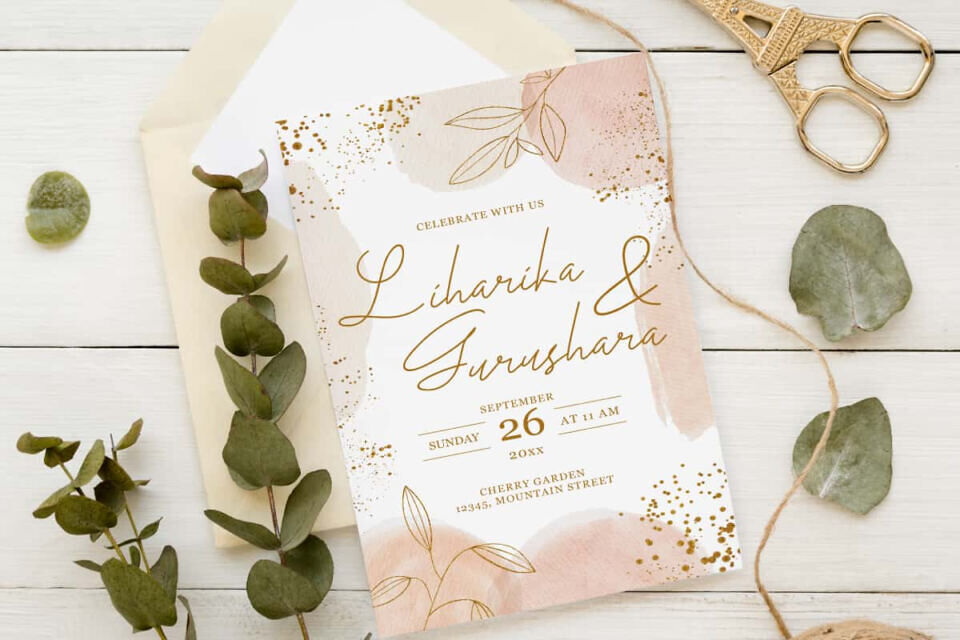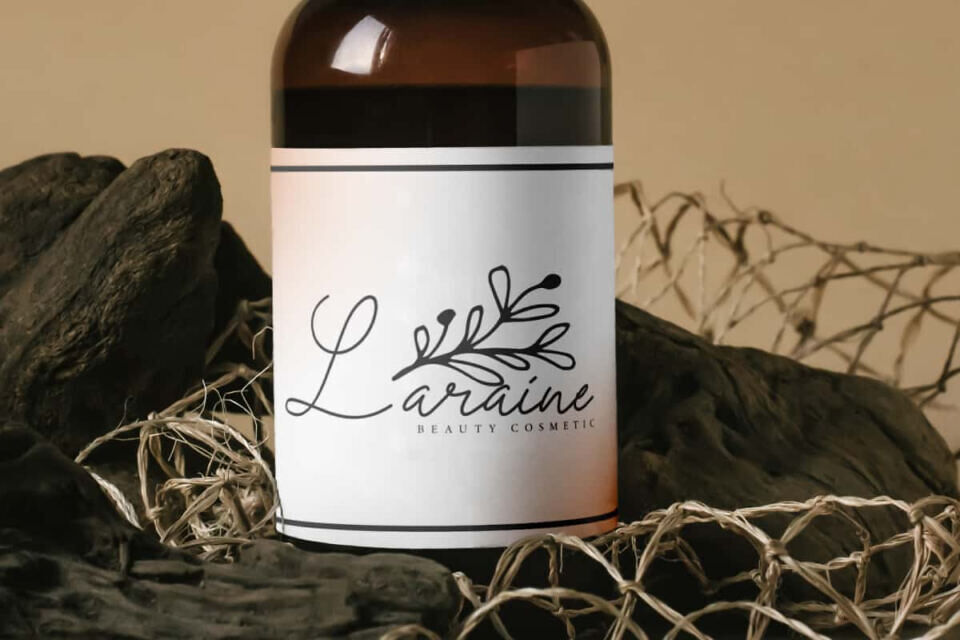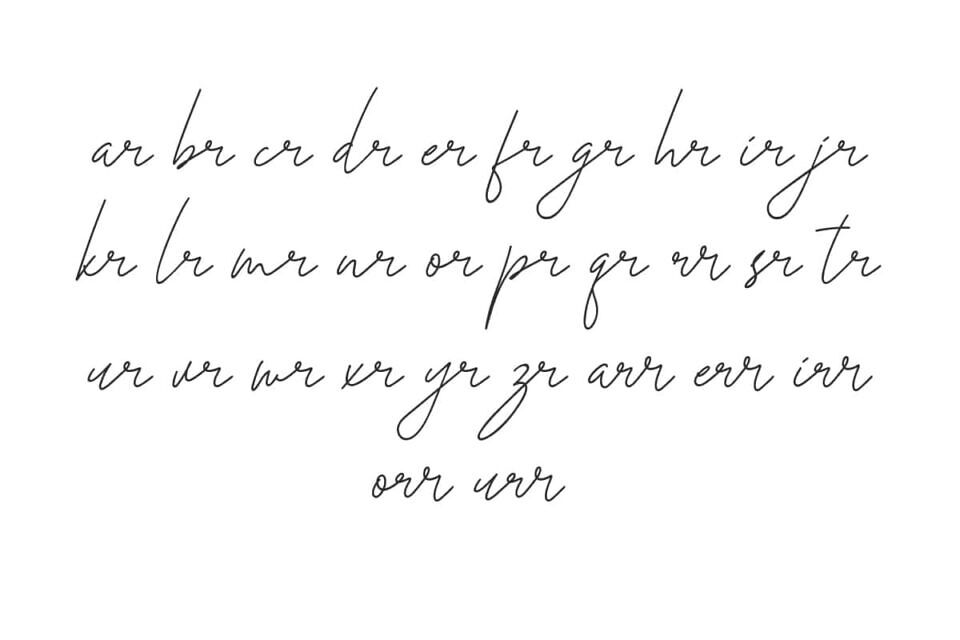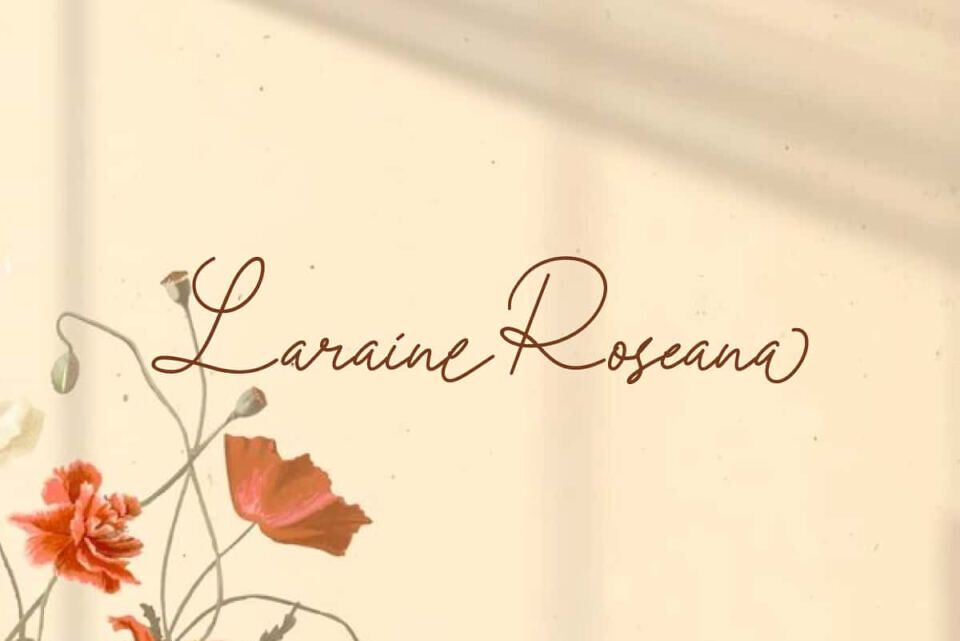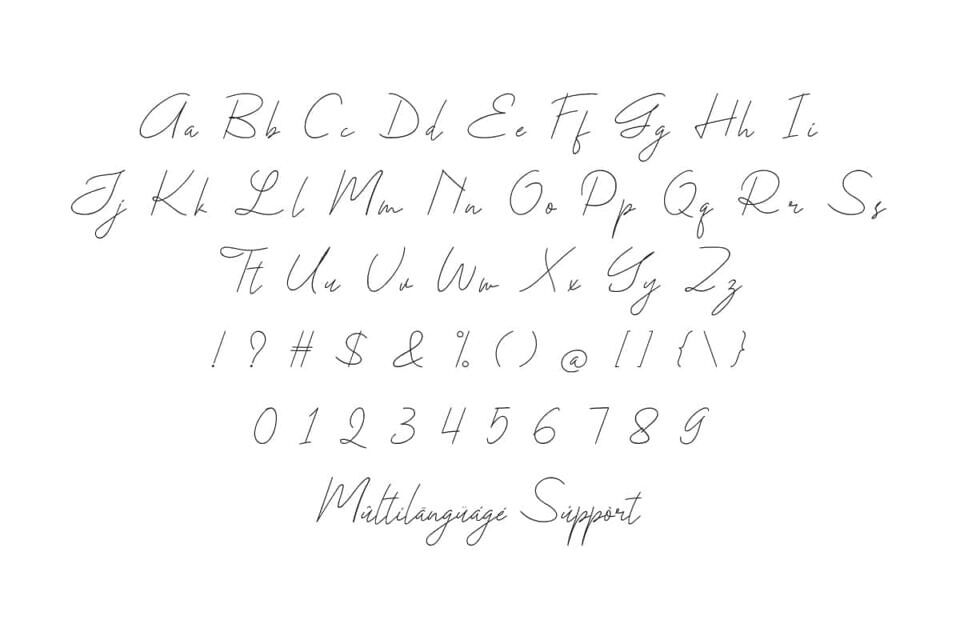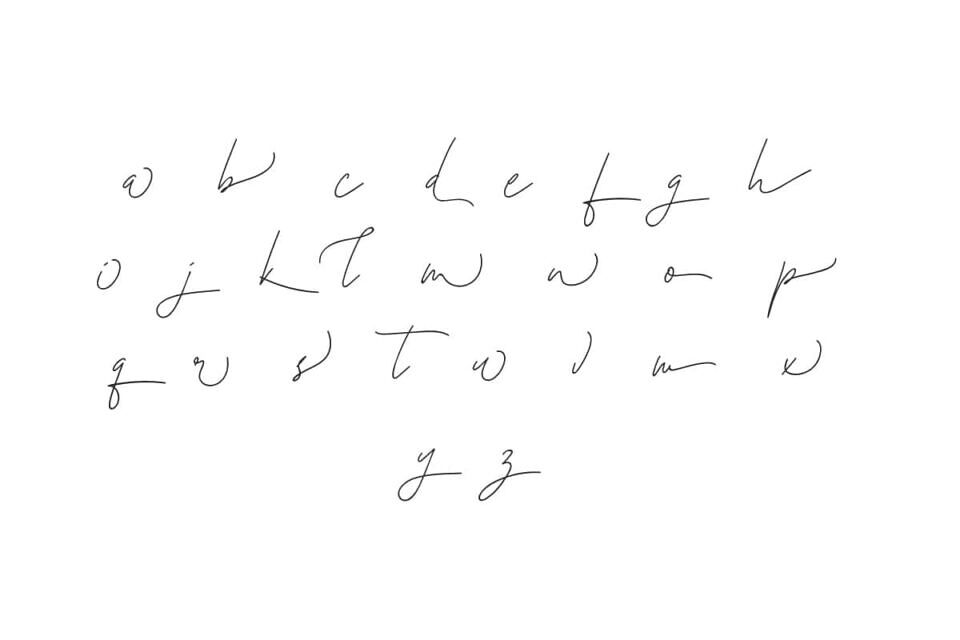
Laraine Roseana Font
Laraine Roseana Font is a handwriting font with a soft, clean and a classic signature style. This font will be suitable for many industries, such as advertisement, author and writer, beauty product, event or festival, florist, handicraft, homeware, jewelry and accessories, printing, publishing, and more!
Laraine Roseana Font includes full set of Uppercase and Lowercase Basic Characters, Numerals, Punctuation, Symbol, Ligature, and Alternate character. Its natural curved lines give a personal impression, as if written directly by hand. Making it a perfect choice for a variety of fields, such as brand image, brochure, business card, cover, custom designs, invitation, label, packaging design, poster, quotes, screen printing, website, etc.